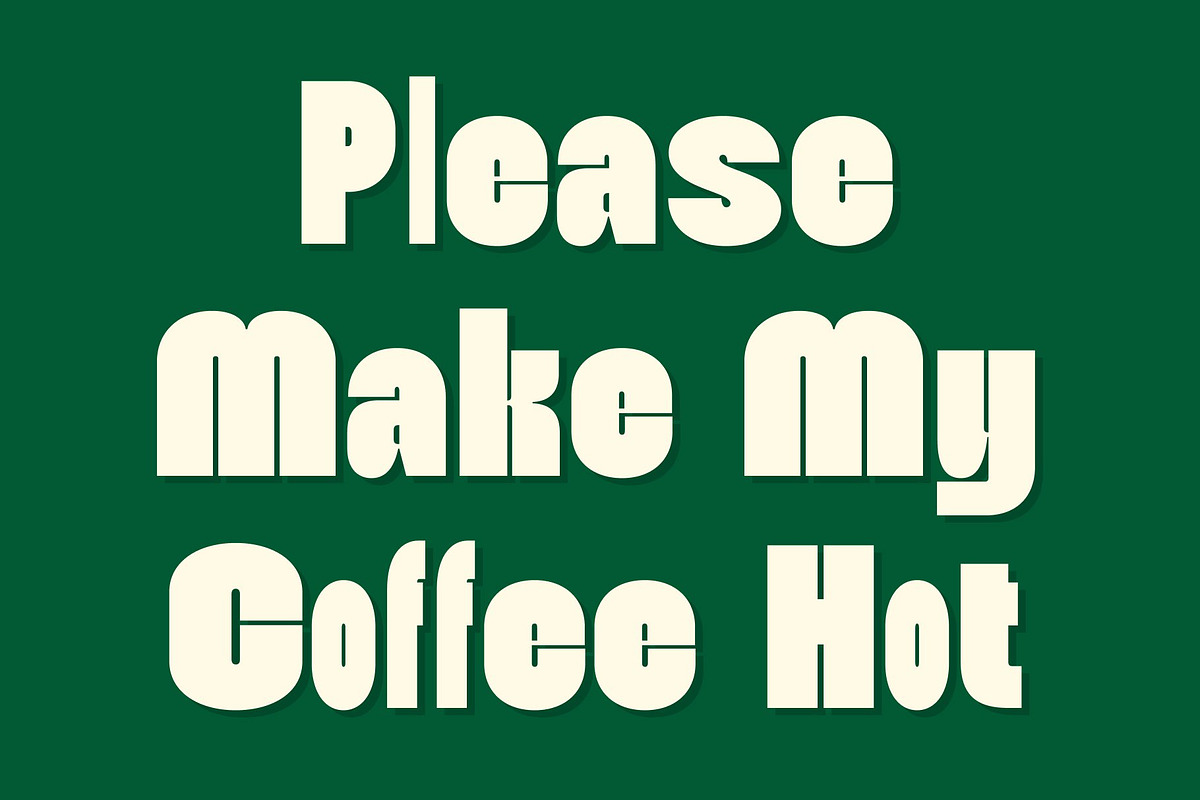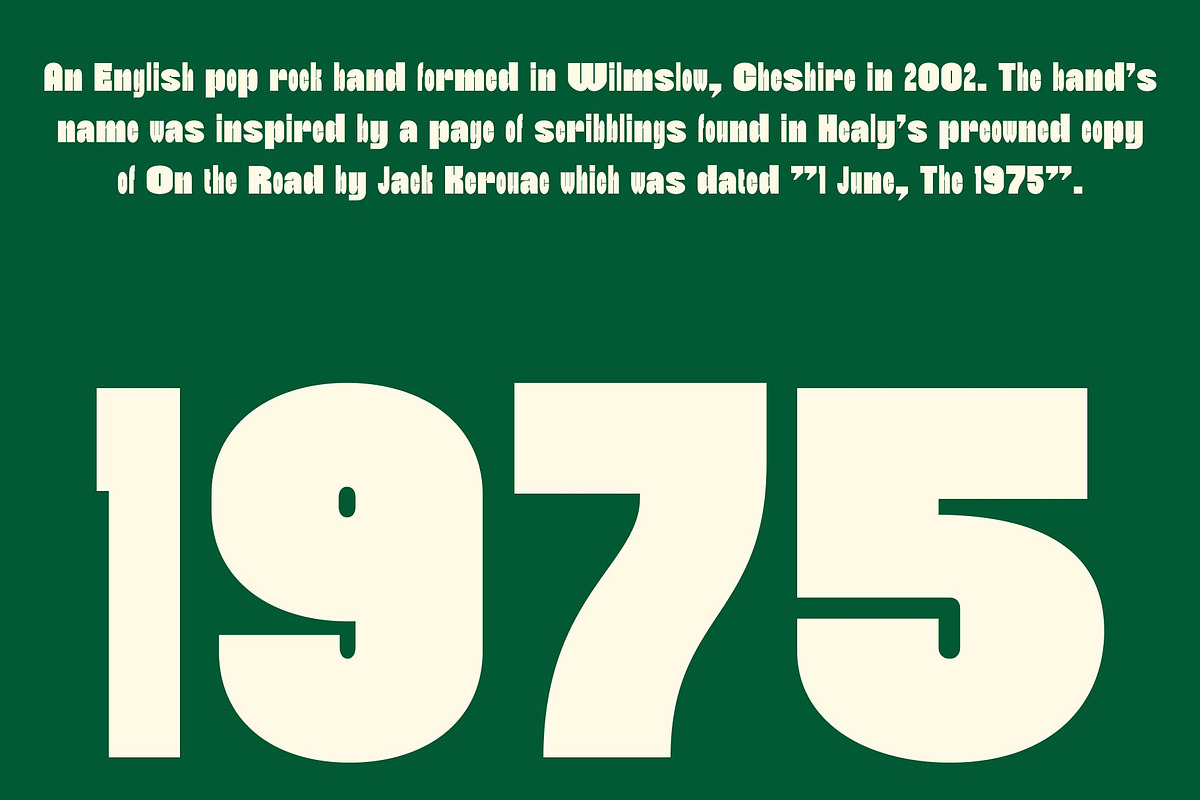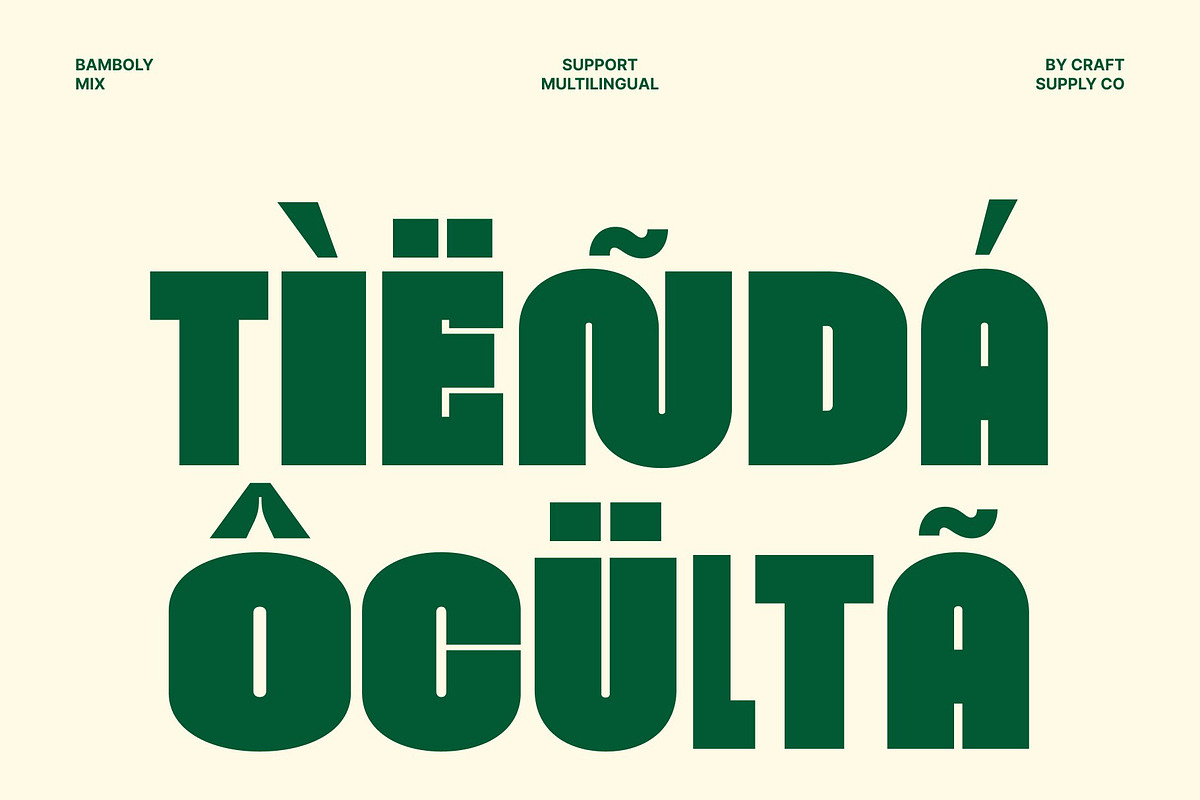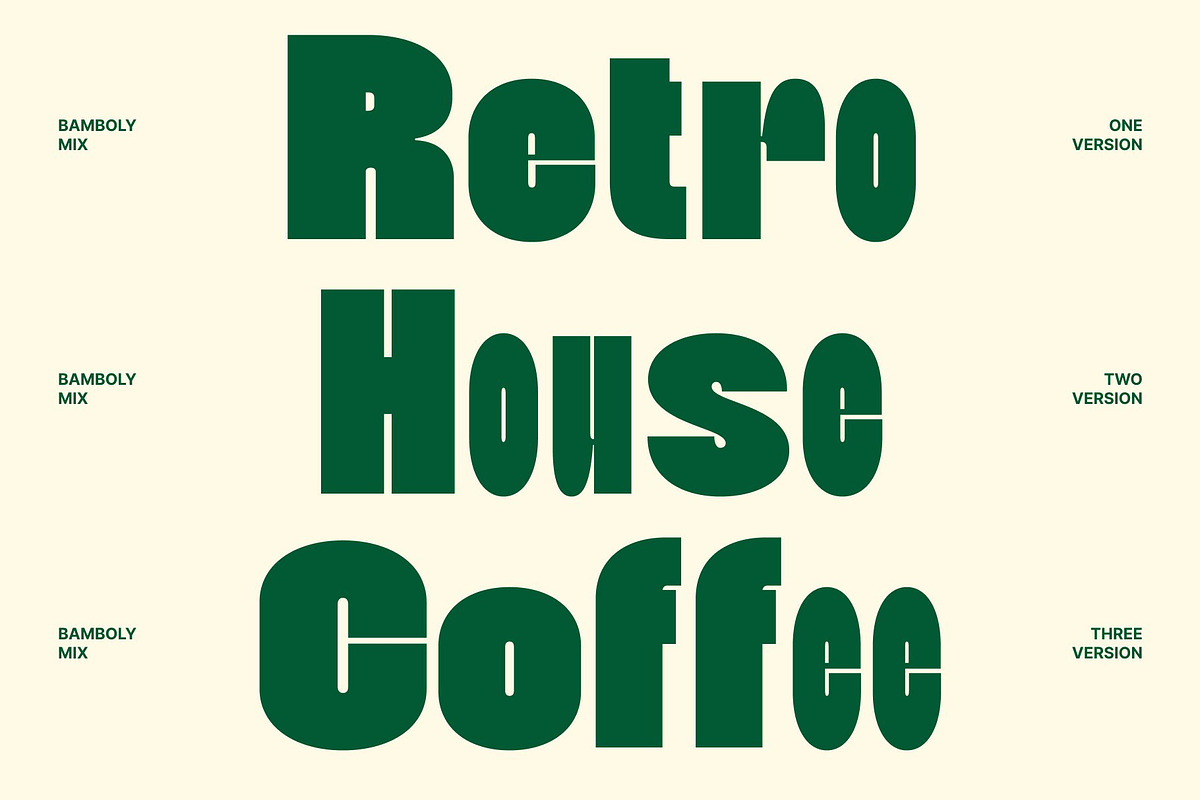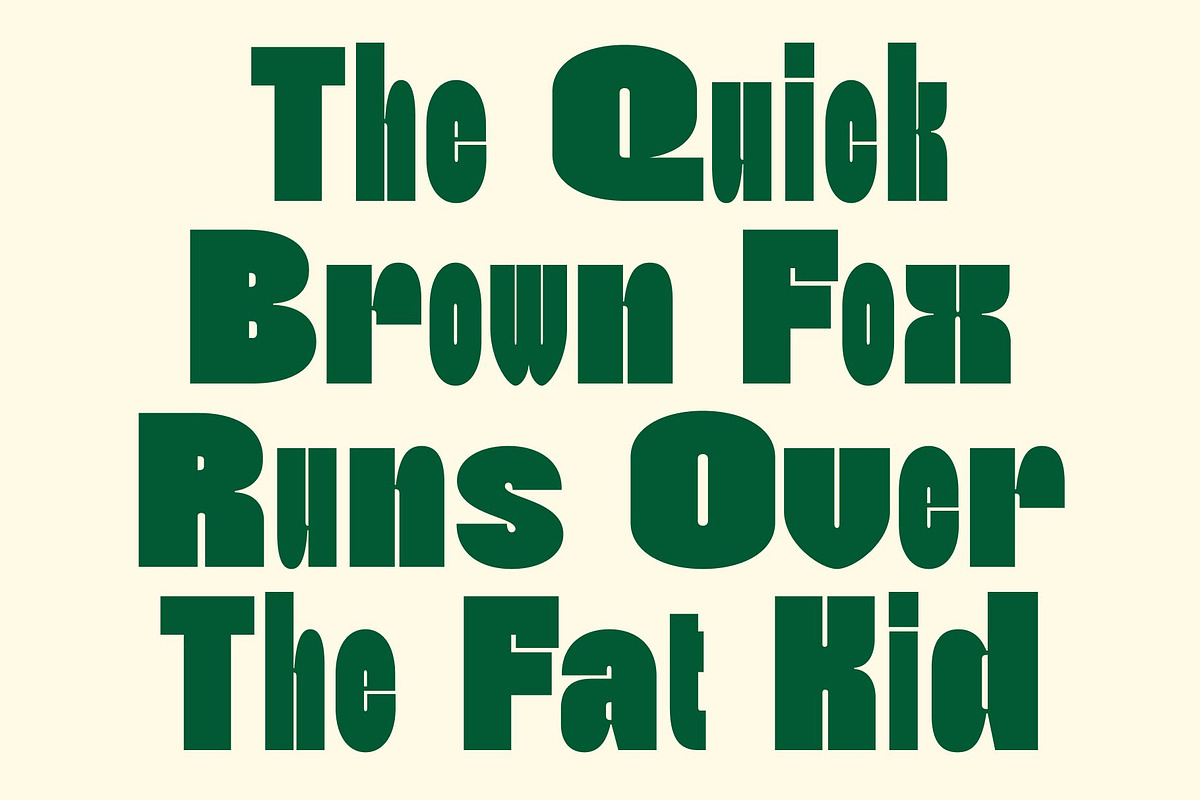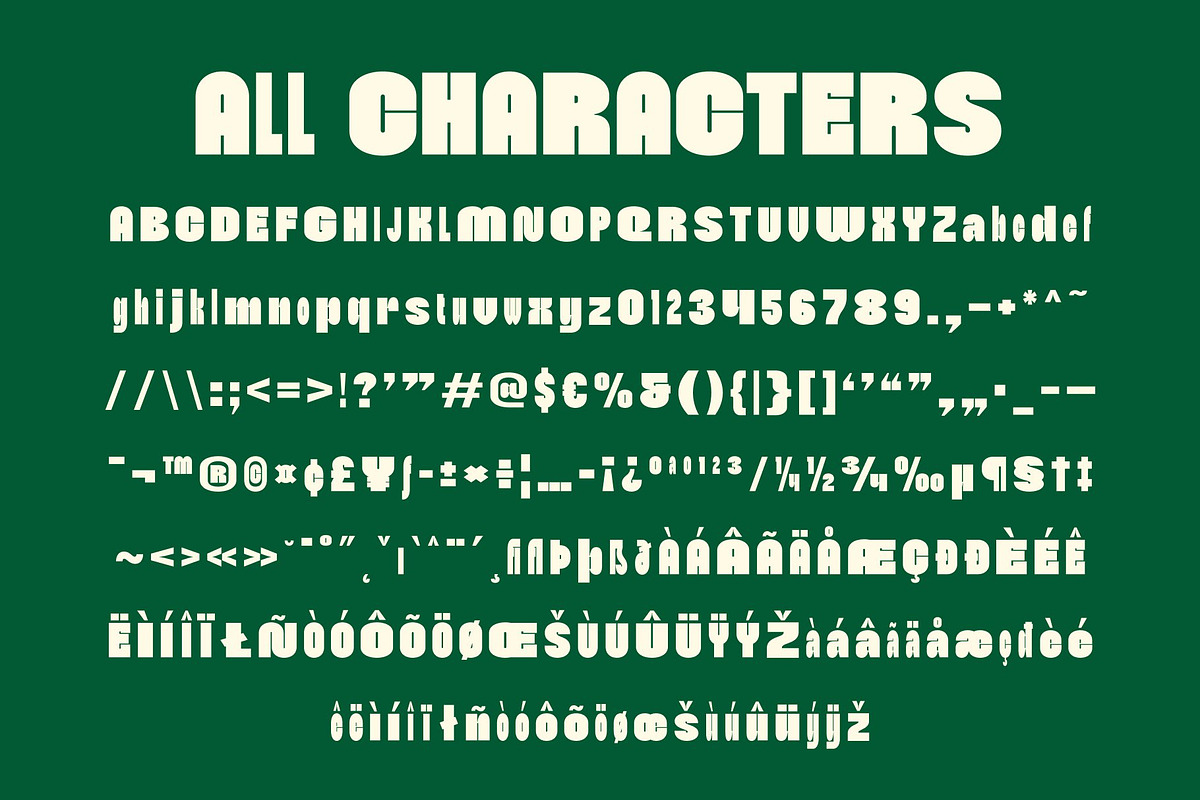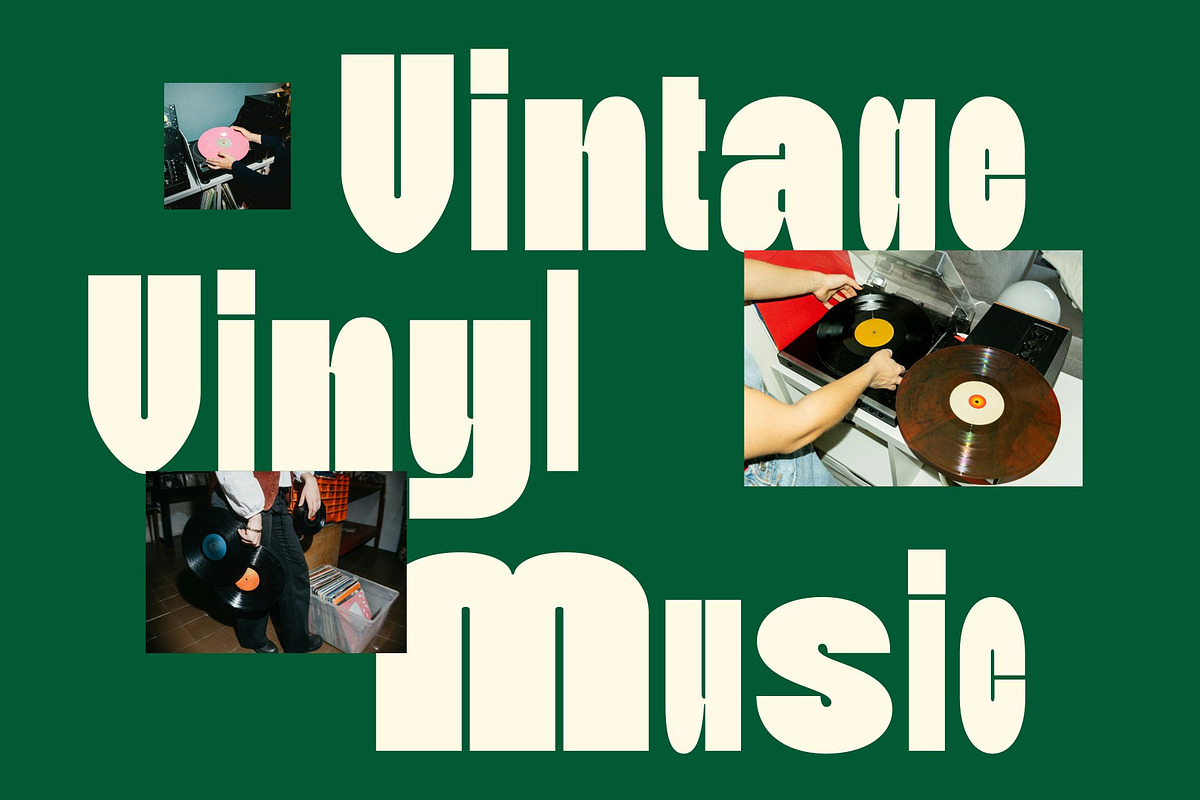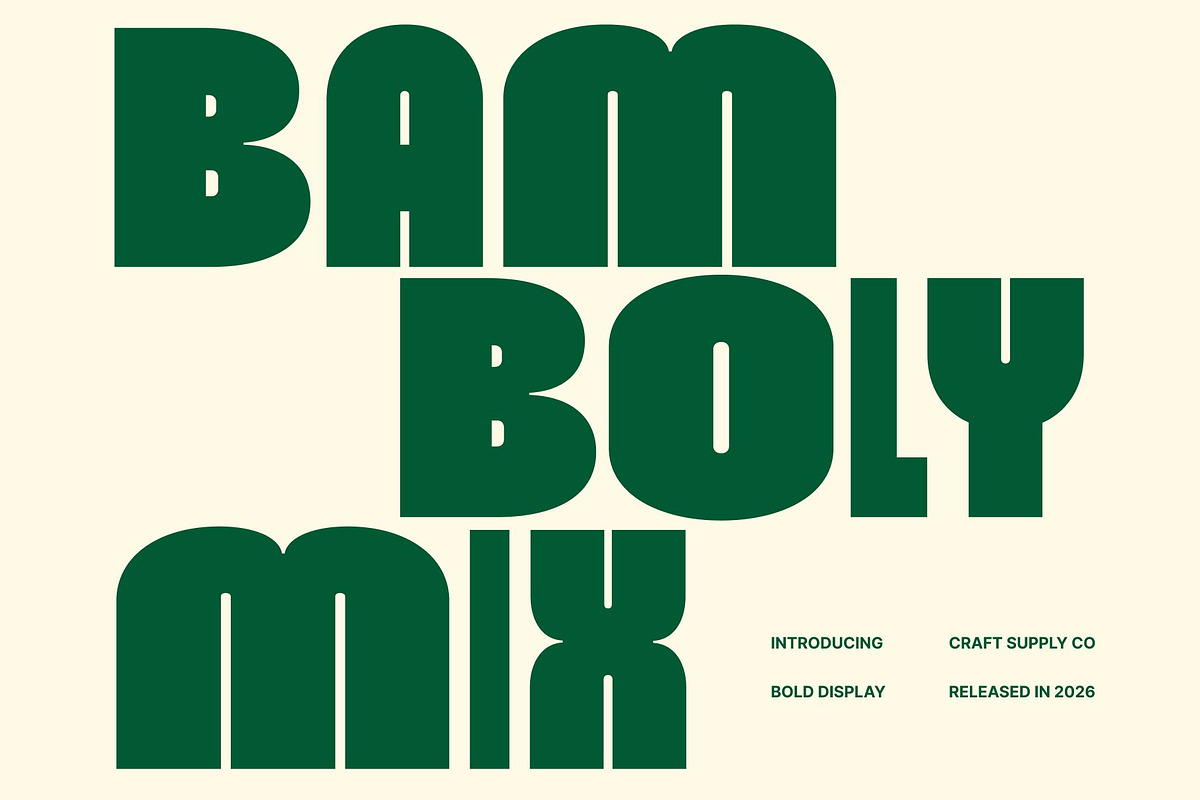
Bamboly Mix
Bamboly Mix – Bold Sans Serif: Power, Precision, and Contemporary Style
Bold Sans Serif with Mixed Weight Personality This is a bold sans serif font crafted to deliver strength, clarity, and a modern professional presence. Designed to command attention, this typeface combines a powerful bold structure with a distinctive mixed-weight concept that adds visual energy to every composition. It brings a confident tone to typography while keeping layouts clean, balanced, and contemporary.
A Unique Blend of Regular and Bold Letterforms The defining feature of this font lies in its creative fusion of regular and bold characters. This intentional mix introduces contrast and rhythm, allowing text to feel more dynamic and expressive. The interplay between strong and balanced strokes gives the font a fresh contemporary look that stands out in modern design.
Clarity and Readability Across All Sizes This font prioritizes legibility while maintaining a striking presence. Its clean shapes, open spacing, and balanced proportions ensure text remains clear in both large display settings and smaller supporting text. Whether viewed on digital screens or printed materials, the font maintains consistency and readability, making it a reliable choice for designers who value both style and function.
Perfect for Modern and Decorative Projects From posters and branding to websites and decorative layouts, this font adapts effortlessly to a wide range of creative needs. Its bold personality communicates confidence and professionalism, while the mixed style keeps every design feeling fresh and current.
Bamboly Mix One
Bamboly Mix Two
Bamboly Mix Three